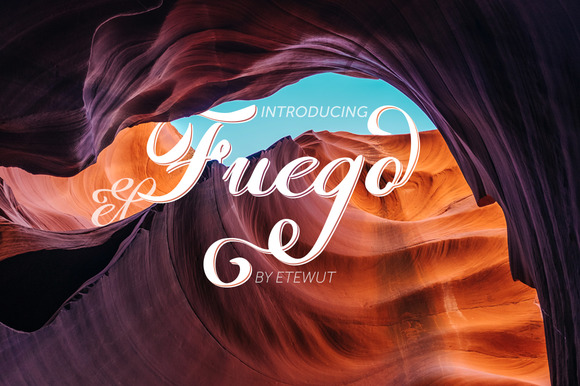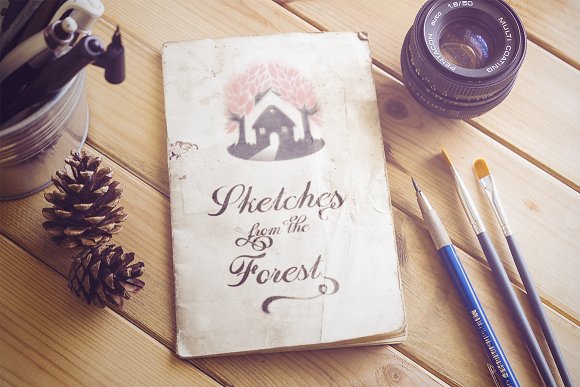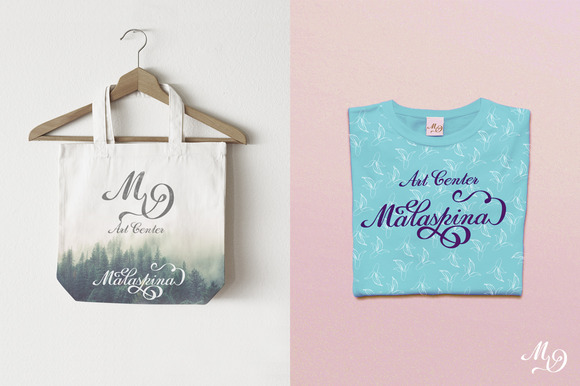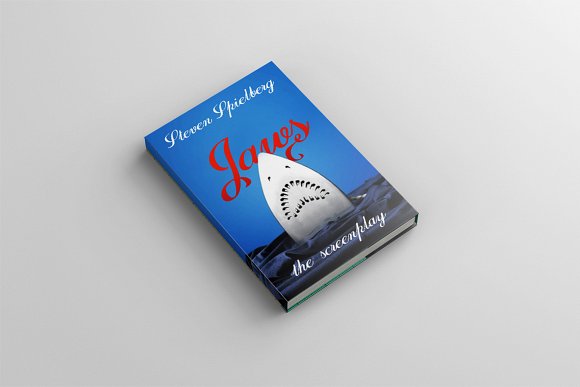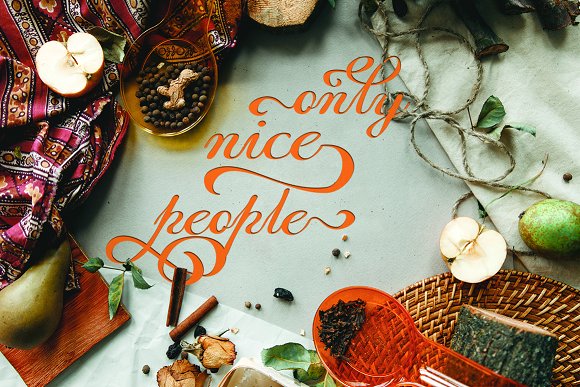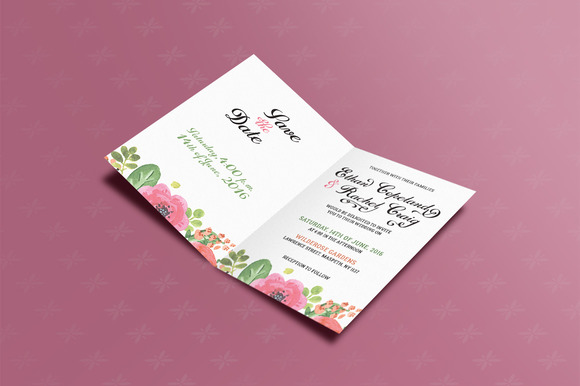
Fuego Font
About Fuego Font
Fuego is a carefully crafted font designed by Etewut.
The Fuego font features curvy letters and includes many different swashes. This font is suitable for creating beautiful decorations and creating stunning word-art. Fuego is easy to read which makes it a great font for wedding and birthday invites, wooden signs, decorating cups and much more.